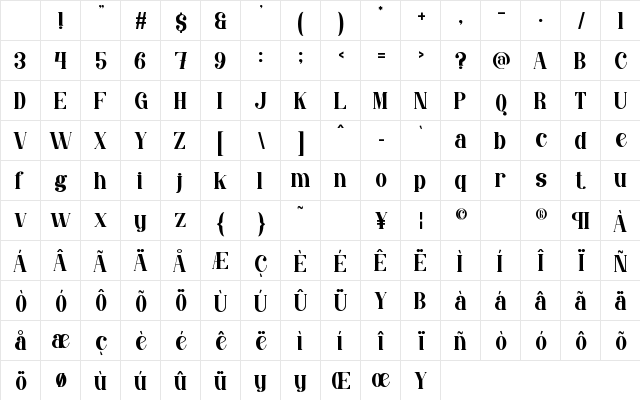
Complete Yaendin Regular glyph index. Displaying only characters natively supported by Yaendin Regular font.
Yaendin is a composed and adaptable typeface that performs quietly and consistently across a wide range of design contexts.